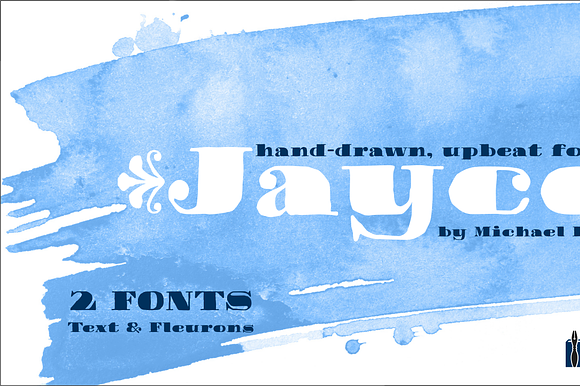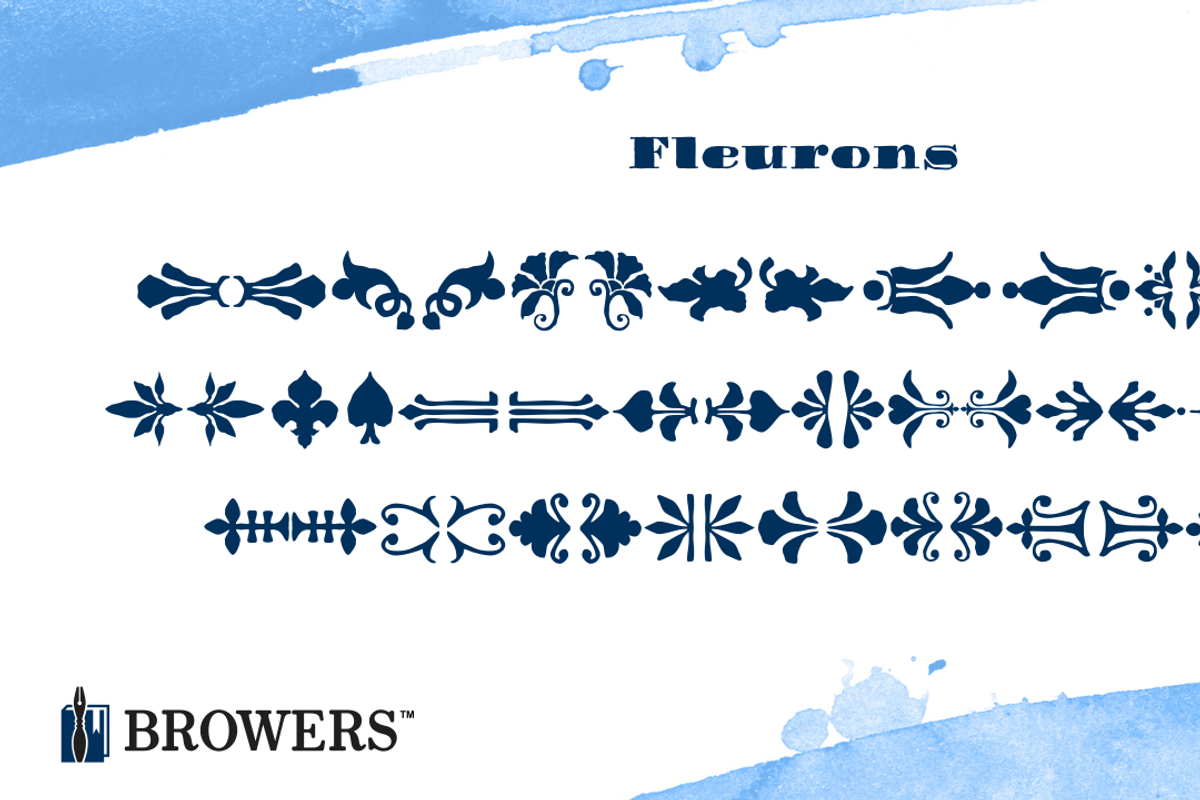
Jayce Font
Jayce is a hand-drawn, upbeat display font family featuring two fonts: a text face and a set of fleurons.
- Jayce Regular
- Jayce Fleurons Regular